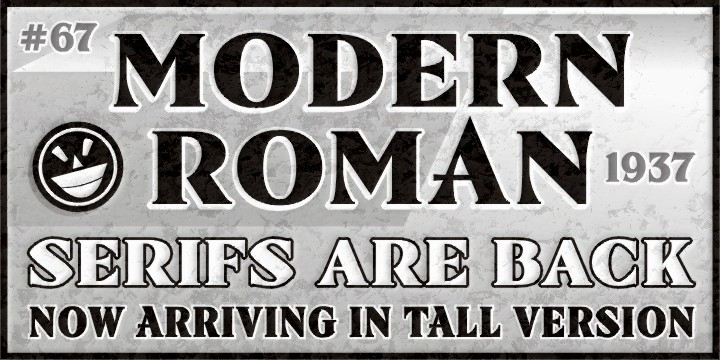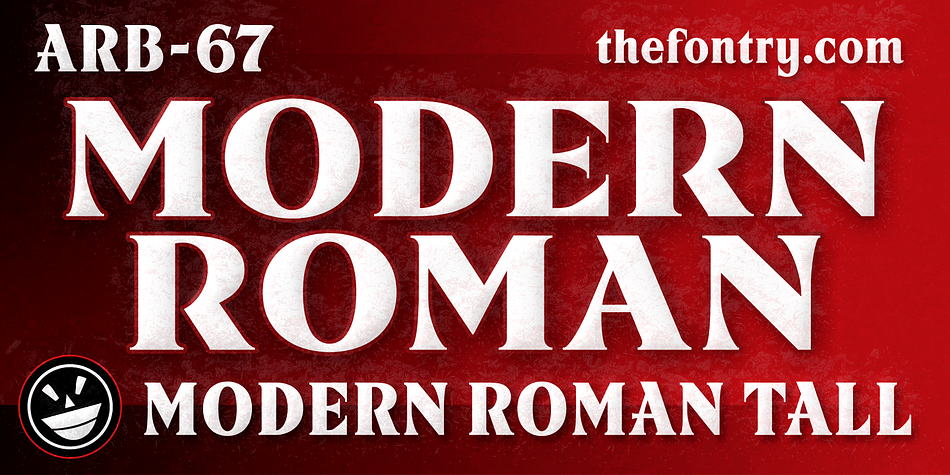
ARB 67 Modern Roman is a display serif and art nouveau font family. This typeface has sixteen styles and was published by The Fontry.
Hunting for a Roman font with serious serifs and vintage shapes usually turns up some pretty typical and yawn-worthy results. Unfortunately, one Roman serif tends to look like another. And then you find yourself staring at this font, a headliner face that takes its job (and serifs) very serious. But stare too long and you’ll find yourself looking at lines and curves that aren’t all that familiar. What is happening? Are we still in the new millenium? Of course we are—but this font isn’t. It thinks its still 1937, and “SIGNS of the Times” magazine by ST Publications has just released it as the 67th alphabet by master sign painter, Alf R. Becker. But vint as it is, this face has been fighting the font wars since 1999, and as of 2009, it has a companion now for those ongoing battles. Bolstered by a tall simulacra of its standard, wider self, ARB 67 finally stands ready to engage all of those empty headlines and banners and signboards that just cry out begging for a font like this.
Beginning in January, 1932, Alf R. Becker of St. Louis Missouri, at the request of then-editor E. Thomas Kelly, supplied “SIGNS of the Times” magazine’s new Art and Design section with an alphabet a month, a project initially predicted to last only two years. Misjuding the popularity of the “series,” it instead ran for 27 years, ending finally two months before Becker’s death in 1959, for a grand total of 320 alphabets, a nearly perfect, uninterrupted run. In late 1941, just ten years after the first alphabet was published, 100 of them were compiled and published in bookform under the title, “100 Alphabets,” by Alf R. Becker.
As published in July 1937, this is the description that accompanied Becker’s 67th alphabet, Modern Roman thick-and-Thin:
Modern Roman Thick-and-thin, Alf R. Becker’s sixty-seventh alphabet in his SIGNS of the Times series, is an attractive, easy-to-read headline letterform, similar in some respects to Spurred Egyptian Thick-and-Thin.
Many font designers have tackled converting Becker’s incredible achievement from paper to digital, and many claim to treat his work with care and dignity. But the Fontry’s Becker fonts remain the most historically accurate and viable treatments available, arriving in two industry-satisfying versions: CAS (Computer-Aided Signmaking) and DTP (Desktop Publishing). And as with all Fontry fonts, the kerning is not optional—it’s exceptional-!!!